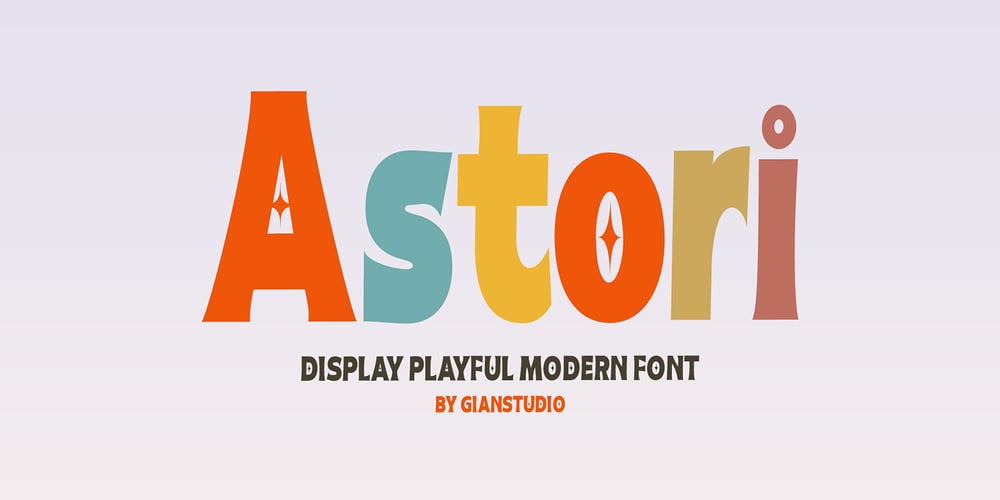
Astori
Astori font
Astori Font Family was designed by Afri Giani and published by Gian Studio. Astori contains 1 styles and family package options. Astori font is an elegant Display typeface with subtle details. This neat font can add modern and fashionable brand appeal. This versatile display typeface has enough character for logos and branding, as well as headlines, apparel, bridal and more. Keep it classic, or decorate it with ornate alternatives to uppercase and lowercase glyphs!To access the alternatives, you must have access to an older version of Photoshop to copy/paste the glyphs from the included PSD, OR the Glyphs Panel, which can be found in Photoshop CC or any Version of Adobe Illustrator.